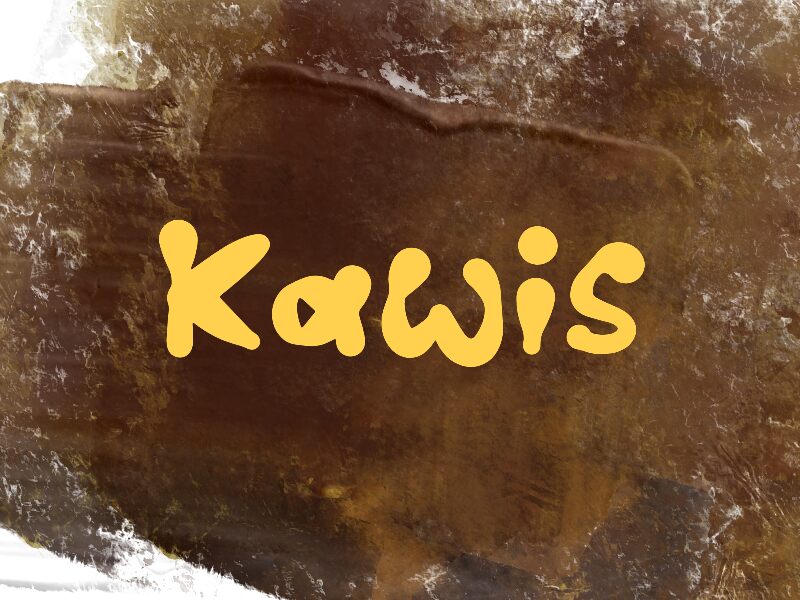
K Kawis font designed by wep comes as a free cartoon typeface for personal use. Soft, rounded corners and smooth shapes are at its central design concept. The alphabetic letters feel fluent, interconnecting each in a harmonious way. Hidden in a collection of standard letters and glyphs are a set of visual surprises – a result of its dedicated set of characters. The final typeface is friendly, informal, youthful, and modern.
The typeface is naturally suited for advertising material and campaigns, especially those promoting wholesome brands and products. Use in package design, posters, banners, and other traditional printed media. K Kawis may also be used digitally across blogs, interfaces, publications, and other social media content. Though it shines in larger visual sizes, it can retain its impact even in smaller free font sizes. Besides, it can pair with other fonts to create the most wholesome visual messaging for your viewers.
Kawis is a stunning free font that offers a unique blend of elegance and modernity. This versatile typeface is perfect for a wide range of design projects, from branding to web design. With its clean lines and artistic flair, Kawis will elevate your typography and captivate your audience.
Whether you are creating flyers, social media posts, or website banners, Kawis provides a stylish solution that maintains readability while adding a touch of creativity. Its various weights and styles make it easy to find the perfect fit for your project.